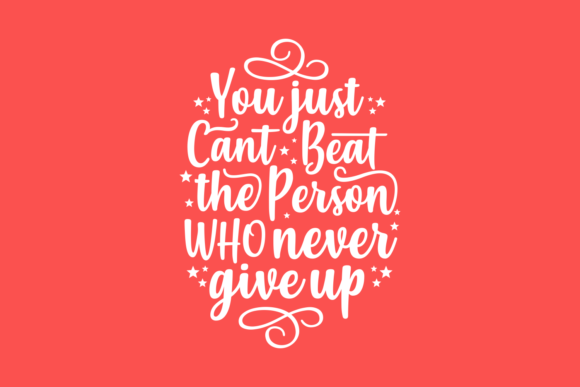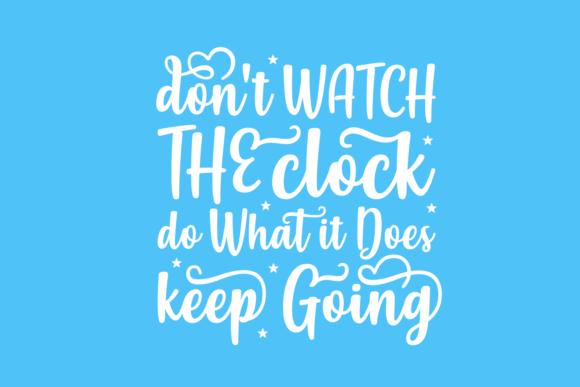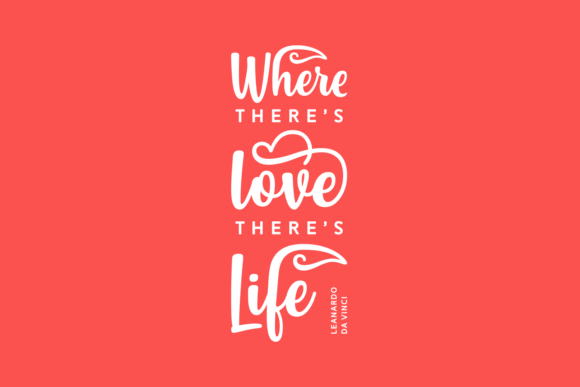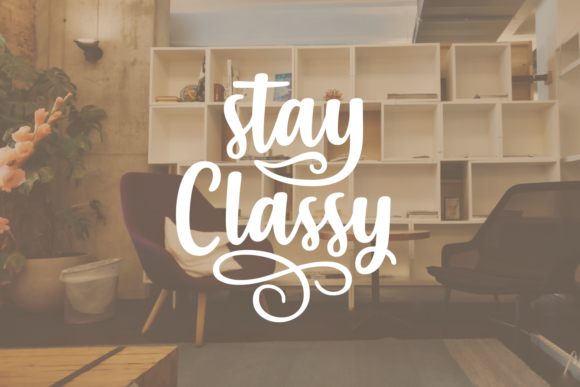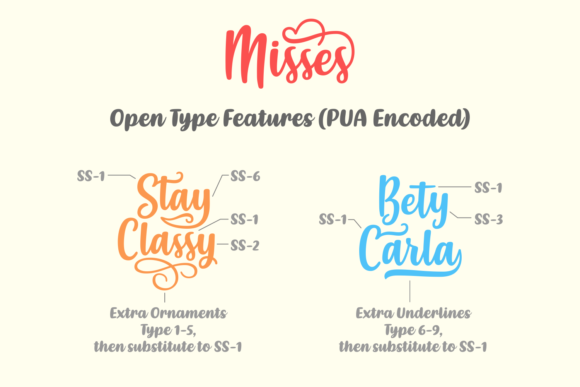
Introduction to Misses Font
Do you remember that moment when you’re working on a creative project, and the right font can make all the difference? It’s like the missing piece of a puzzle that suddenly falls into place, elevating your entire design from good to great. For designers, finding the perfect font can be a game-changer, and that’s exactly what the Misses Font offers.
With its gorgeous handwritten script, the Misses Font is a high-quality design resource that’s perfect for adding a touch of whimsy to your work. Whether you’re working on a personal project or a commercial one, this font is sure to bring a unique and creative feel to your design. And the best part? You can download it for free, making it an accessible and valuable resource for designers of all levels.
From transparent backgrounds to intricate details, the Misses Font is a versatile tool that can be used in a variety of ways. Its high-quality design and extensive character set make it an ideal choice for designers who want to add a personal touch to their work.
Key Features of Misses Font
- High-quality design: Misses Font is designed with precision and care to ensure a beautiful and professional look for your creative project.
- Transparent background: This versatile font allows for seamless integration into various design elements, including images with transparent backgrounds.
- High-resolution design: With a high-resolution design, Misses Font looks great at any size, from small text to large headings.
- Perfect for design projects: Misses Font is ideal for use in a variety of creative projects, including logos, branding materials, and print designs.
- Design resource: Misses Font is a valuable addition to any designer’s collection, offering a unique and stylish design element for your next project.
Honest Review: Misses Font
I recently came across the Misses Font and was excited to give it a try. As a designer, I’m always on the lookout for high-quality fonts that can elevate my creative projects.
One of the things that stands out about Misses Font is its transparent background, which makes it incredibly versatile for use in a variety of design settings. ✨ This font is perfect for designers who want to create visually appealing graphics without the hassle of complicated background removal.
Here are some key features of Misses Font:
- High-quality design for a professional look
- Perfect for creative projects, including graphics, logos, and more
One limitation of Misses Font is its limited character set, which may not be suitable for longer text-based projects. ⚠️ Additionally, the font may not be compatible with all design software.
Overall, I would recommend Misses Font to designers who are looking for a high-quality, easy-to-use font for their creative projects. With its transparent background and free download option, it’s a great addition to any design resource library.
Misses Font
Tips for Getting the Most Out of Misses Font
To get the most out of Misses Font, use it with a transparent background for a clean and elegant design. You can also experiment with different font sizes and styles to add creativity to your design project.
Misses Font is a versatile font that can be used in a variety of creative projects, including branding, packaging, and advertising. Its high-quality design makes it a popular choice among designers.